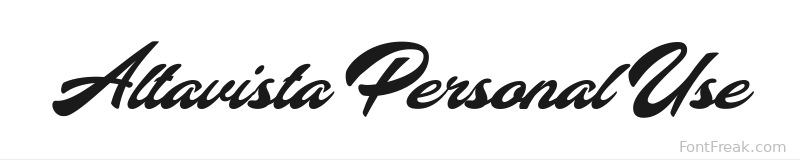
Altavista Personal Use
About Altavista Personal Use
The Altavista Personal Use font, designed by Billy Argel Fonts, is a striking script typeface that exudes elegance and charm. This font showcases a fluid, cursive style characterized by its smooth, sweeping strokes and dynamic ligatures. The stroke weight varies throughout, creating a sense of movement and grace, while the moderate contrast adds depth to the overall appearance. The spacing is well-balanced, allowing for clear readability without sacrificing the artistic flair that defines this typeface.
Ideal for a variety of applications, the Altavista Personal Use font shines in contexts such as wedding invitations, where its romantic aesthetic can elevate the overall design. It is also perfect for greeting cards, offering a personal touch that resonates with recipients. Additionally, this font works beautifully for branding projects, such as coffee shop menus or boutique labels, giving a unique identity to small businesses. Graphic designers and content creators will find this font an excellent choice for crafting eye-catching social media graphics or event flyers.
What truly sets the Altavista Personal Use font apart is its ability to blend artistry with functionality. It captures attention while remaining legible and accessible, making it an essential addition to any designer's toolkit. Whether you're aiming for a playful or elegant vibe, this font delivers with style, making it a standout choice for those seeking to enhance their visual communication.